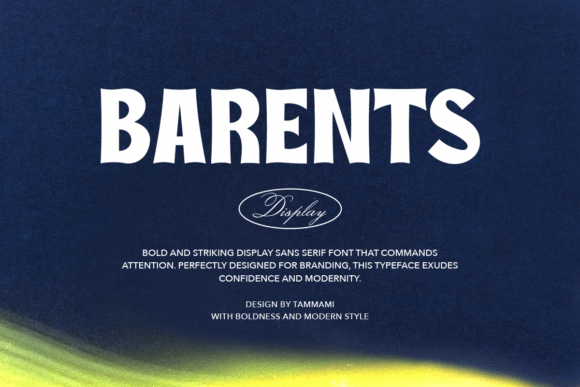
The Perfect Blend of Bold and Elegant: Unveiling the Barents Font
It’s 3 AM, and the creative juices are flowing. You’re brainstorming ideas for a new branding project, and suddenly, a spark of inspiration hits. You envision a font that exudes confidence, sophistication, and a hint of edginess. That’s where the Barents Font comes in – a game-changing typeface that’s perfect for making a statement.
As a graphic designer, you’re always on the lookout for fonts that can elevate your work and leave a lasting impression. Barents Font is more than just a font – it’s a powerful tool that can help you create standout designs for branding, apparel, and printing needs. Its bold character and appealing design make it an ideal choice for designers looking to create memorable works that command attention.
Barents Font Key Features
- Unique Characteristic: Custom-designed Cyrillic and Latin Alphabet: Barents Font features a unique combination of Cyrillic and Latin alphabet, making it an ideal choice for projects requiring both languages.
- Font Style and Variations: Barents Font offers a range of font styles, including Regular, Bold, Italic, and Bold Italic, providing flexibility for designers to create visually appealing and engaging content.
- High-Quality Typography: The font is designed to deliver high-quality typography, with precise letterforms and attention to detail, resulting in a professional and polished appearance.
Barents Font Review
As a designer, I was excited to try out the Barents font, and overall, I’m impressed with its potential. Here are my thoughts on what works well and what could be improved.
- The Barents font has a unique, rugged feel that’s perfect for outdoor or adventure-themed projects.
- The font’s x-height is well-balanced, making it easy to read, even in smaller sizes.
- The font’s OpenType features allow for some interesting ligature and swash options, adding to its character.
- The font’s irregular letterforms may not be suitable for all types of projects, such as formal or corporate designs.
- The font’s weight range is somewhat limited, with only three weights available (Regular, Medium, and Bold).
- The font may not be suitable for projects that require a lot of fine typography or precision.
While the Barents font has some limitations, its unique character and OpenType features make it a great choice for certain types of projects. I’d recommend it for outdoor-themed designs, travel brochures, or any project that needs a rugged, adventurous feel.
Tips for Getting the Most Out of Barents Font
Use the Barents font for headings and titles to create a strong visual impact.
Use it in conjunction with other fonts to create a unique and stylish typography.
Common Use Cases for Barents Font
The Barents font is commonly used in graphic design, branding, and marketing materials.
It is also used in publications, websites, and social media to add a touch of sophistication and elegance.